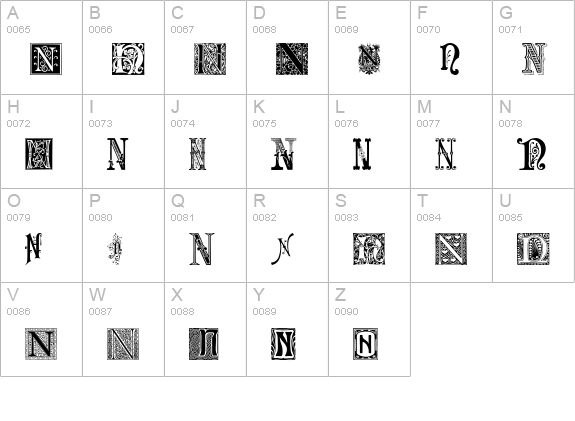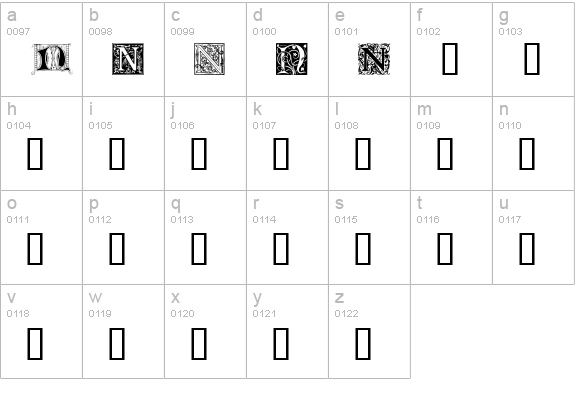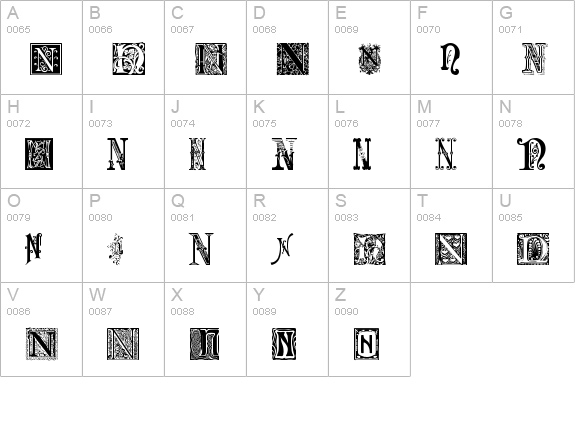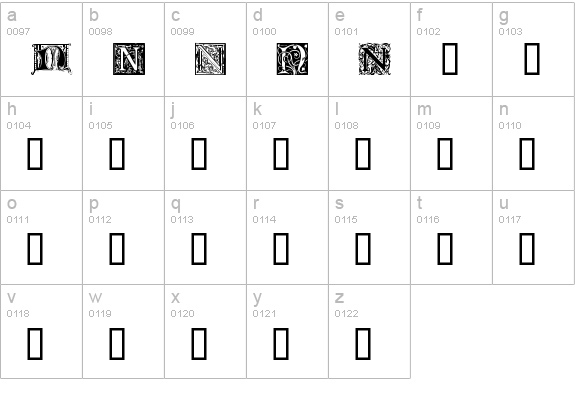
Ornamental Initials N Font Details
Ornamental Initials N font is a stunning display typeface that exudes elegance and sophistication. With intricate ornamental details and a classic serif style, this font is perfect for adding a touch of luxury to your designs. The ornate initial 'N' serves as a beautiful focal point, making a bold statement in any project. Best of all, Ornamental Initials N font is available for free download at FontsMarket.com. Whether you're designing invitations, posters, or branding materials, this font is sure to elevate your creations and leave a lasting impression. Don't miss out on the opportunity to enhance your design toolkit with this exquisite and versatile typeface.